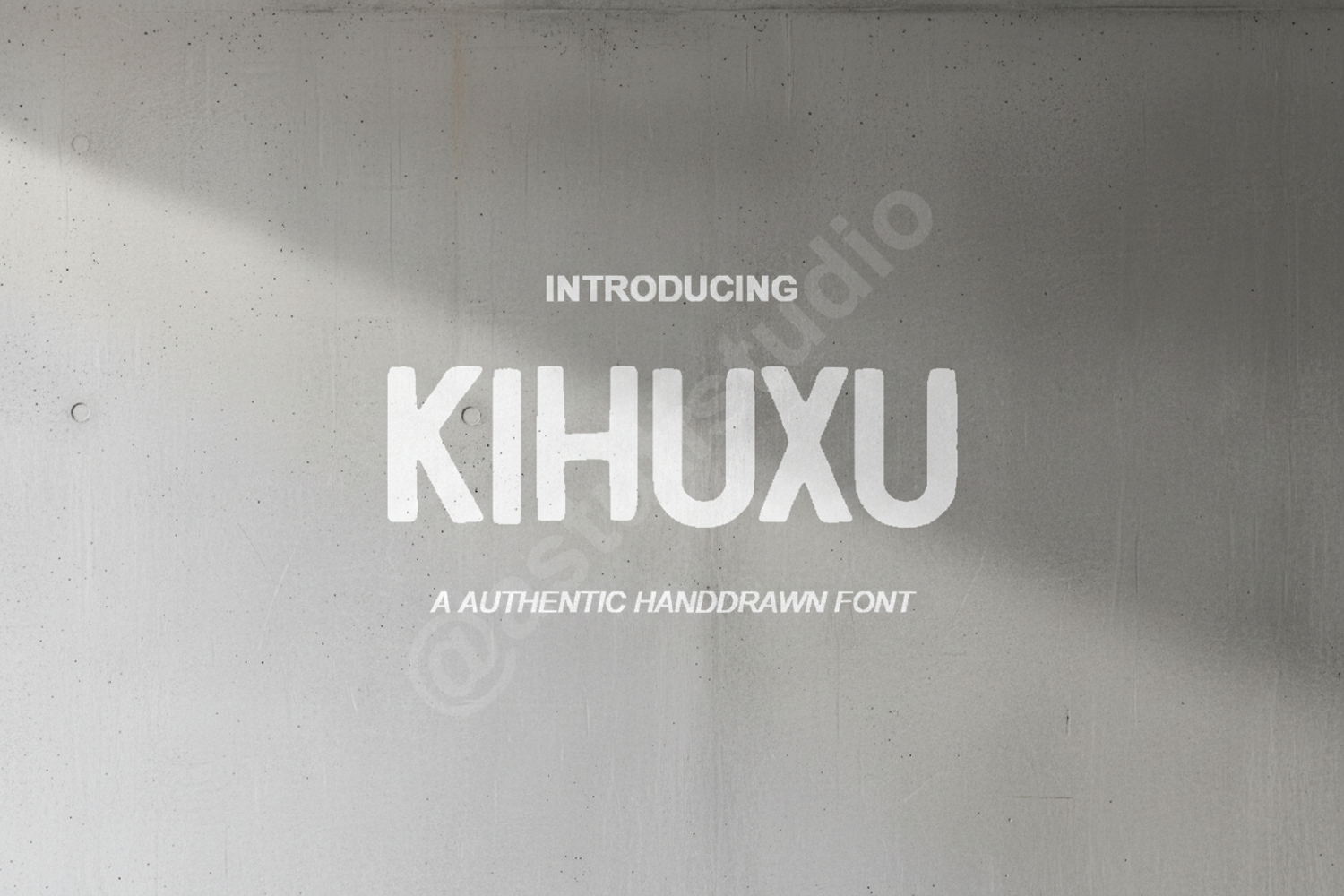
Kihuxu - Elegant Modern Serif Display Font
Kihuxu
Experience the perfect blend of sophistication and contemporary design with Kihuxu. This premium serif typeface was meticulously crafted to bring a touch of luxury to your creative projects. With its clean lines and unique character shapes, Kihuxu stands out as a versatile choice for designers seeking high-end aesthetics and professional results.
- Full set of uppercase and lowercase letters
- Comprehensive numbers and punctuation
- Multilingual support for global accessibility
- Branding and Visual Identity: Create memorable logos and brand marks that exude professional quality.
- Editorial Design: Perfect for magazine headings, book covers, and high-fashion layouts.
- Wedding and Events: Add an elegant touch to invitations, menus, and place cards.
- Social Media: Elevate your digital presence with eye-catching quotes and promotional graphics.
- Product Packaging: Ideal for luxury goods, cosmetics, and boutique labeling.